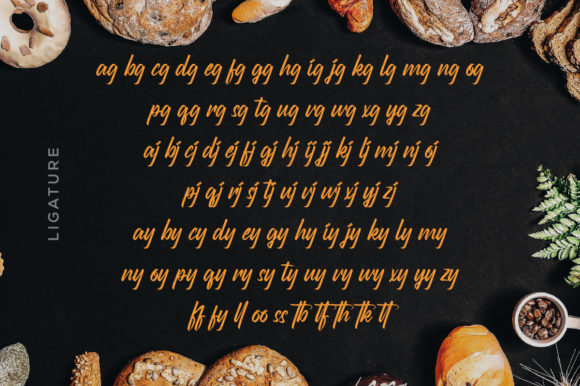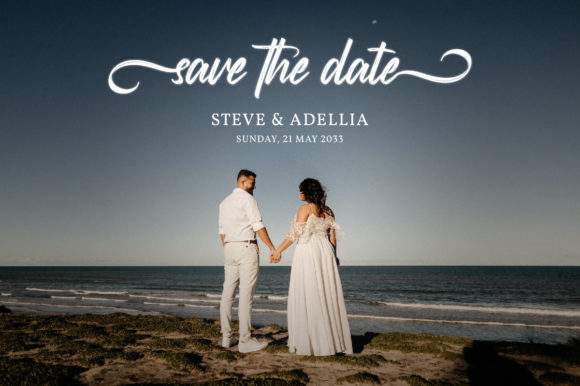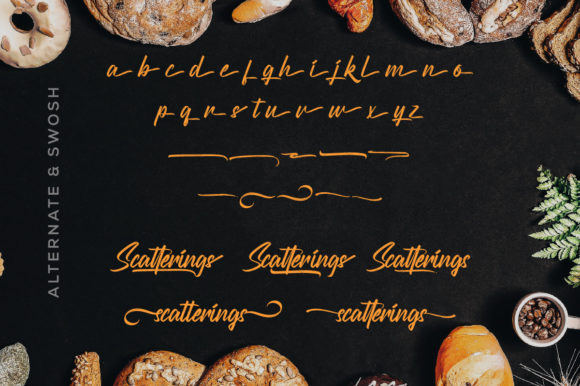
Introduction to Scatterings Font
Have you ever been stuck on a creative project, staring at a blank page or screen, waiting for inspiration to strike? For designers, those moments can be a challenge, but also an opportunity to find the perfect design resource that sets their project apart. That’s where the Scatterings Font comes in – a beautiful, timeless brushed handwritten font that can add a touch of elegance and sophistication to any design.
Whether you’re creating a logo, branding, or a quote, the Scatterings Font is a valuable tool in your design arsenal. With its PUA encoding, you can easily access all of the glyphs and swashes, giving you the flexibility to customize your design to perfection. And, with a high-quality design like this, you can rest assured that your project will stand out from the crowd, even on a transparent background.
Ready to take your design to the next level? Let’s dive into the world of the Scatterings Font and explore its endless possibilities.
Key Features of Scatterings Font
- High-quality design resource ideal for creative projects requiring unique typography.
- Comes in a single size, making it suitable for a wide range of applications, from small to large-scale designs.
- Offers high-resolution designs (up to 300 DPI) for crisp and clear display on various mediums.
- Perfect for designers seeking a distinctive, creative element to elevate their designs.
Honest Review: Scatterings Font
I recently stumbled upon the Scatterings Font and I must say it’s been a refreshing addition to my design resources. This beautiful, hand-drawn font has a whimsical feel to it that’s perfect for creative projects that need a bit of personality.
One of the standout features of Scatterings Font is its transparent background, which makes it super easy to use as a layering element in your designs. The high quality of the font is evident in its crisp lines and delicate details, making it a joy to work with.
- Unique, hand-drawn design that adds character to your projects
- High quality, crisp lines and details
- ⚠️ Limited character set, may not be suitable for large blocks of text
- ⚠️ Not as versatile as some other fonts, may not work well in formal or corporate contexts
Overall, I’m really impressed with the Scatterings Font and I think it’s a great addition to any designer’s toolkit. While it may have some limitations, its unique design and high quality make it a must-try for creative projects.
Tips for Getting the Most Out of Scatterings Font
For optimal results, use Scatterings Font in conjunction with high-quality images and design elements.
– Experiment with different font sizes and colors to create visual interest.
– Use the font’s transparent background to create layered designs.
Scatterings Font is ideal for a variety of creative projects, including:
– Branding materials
– Marketing collateral
– Digital art projects